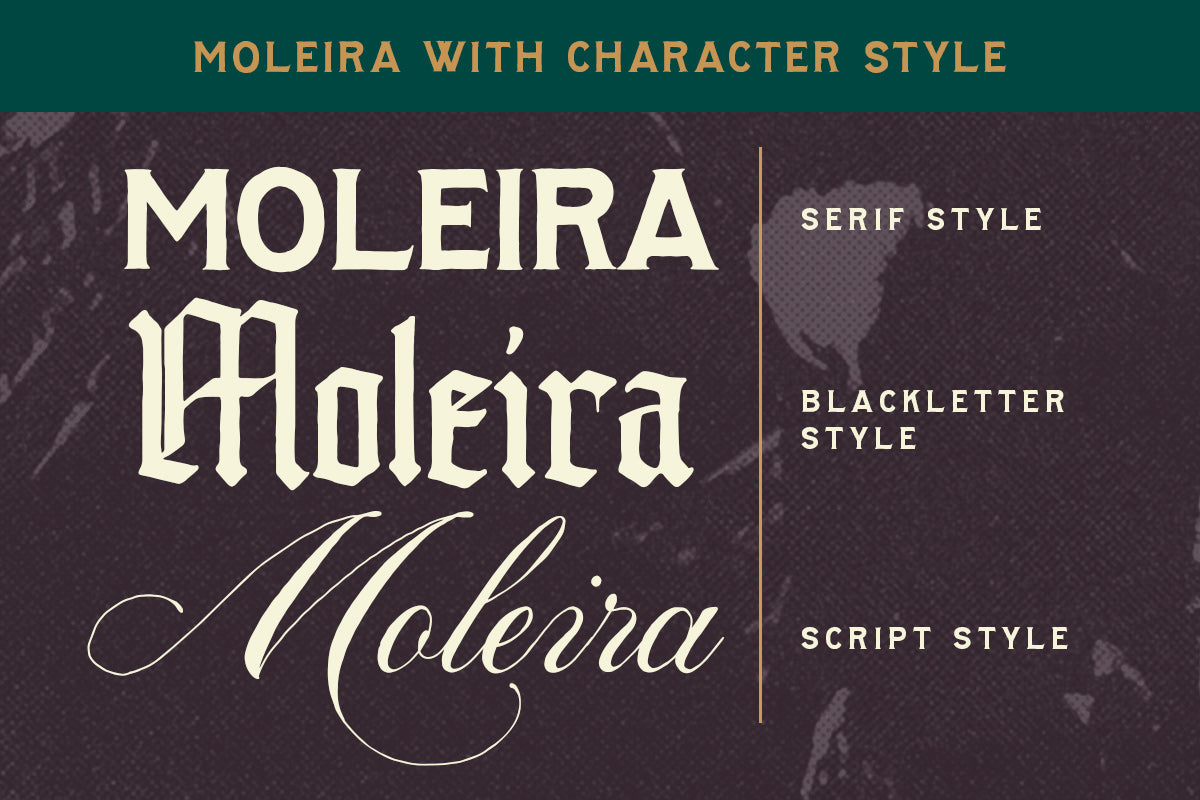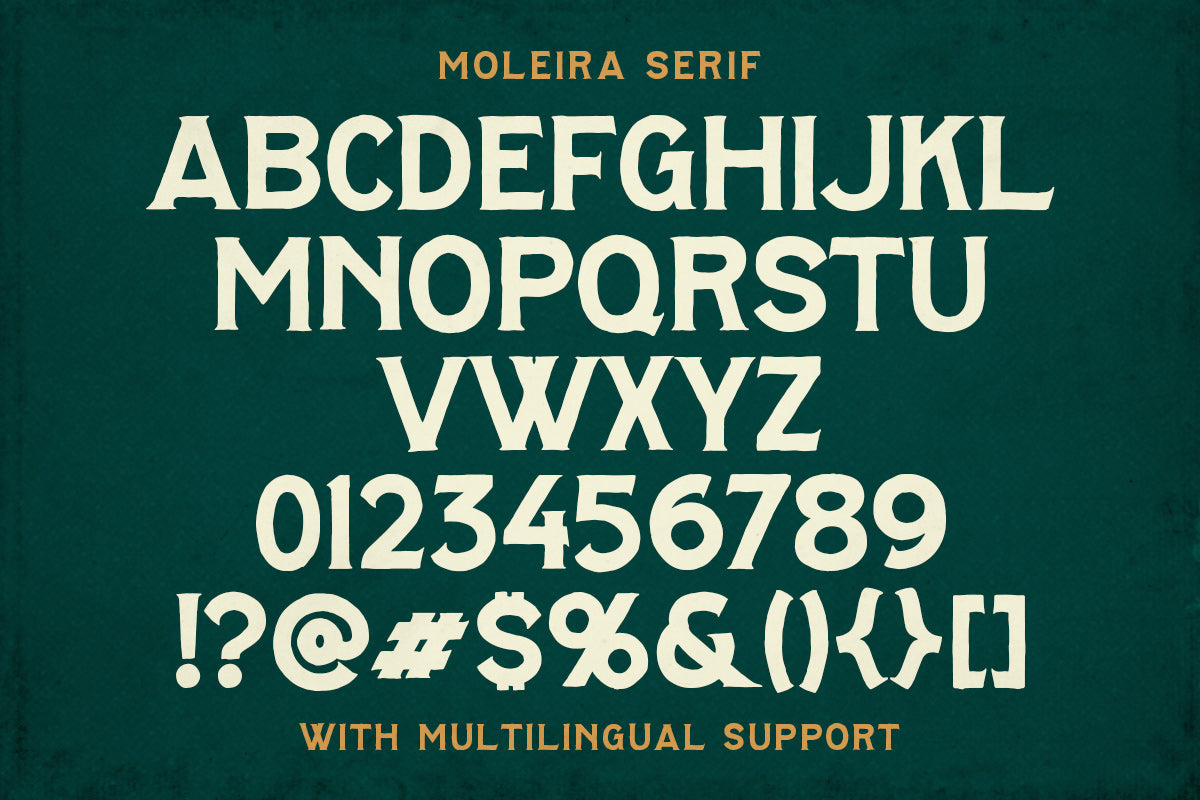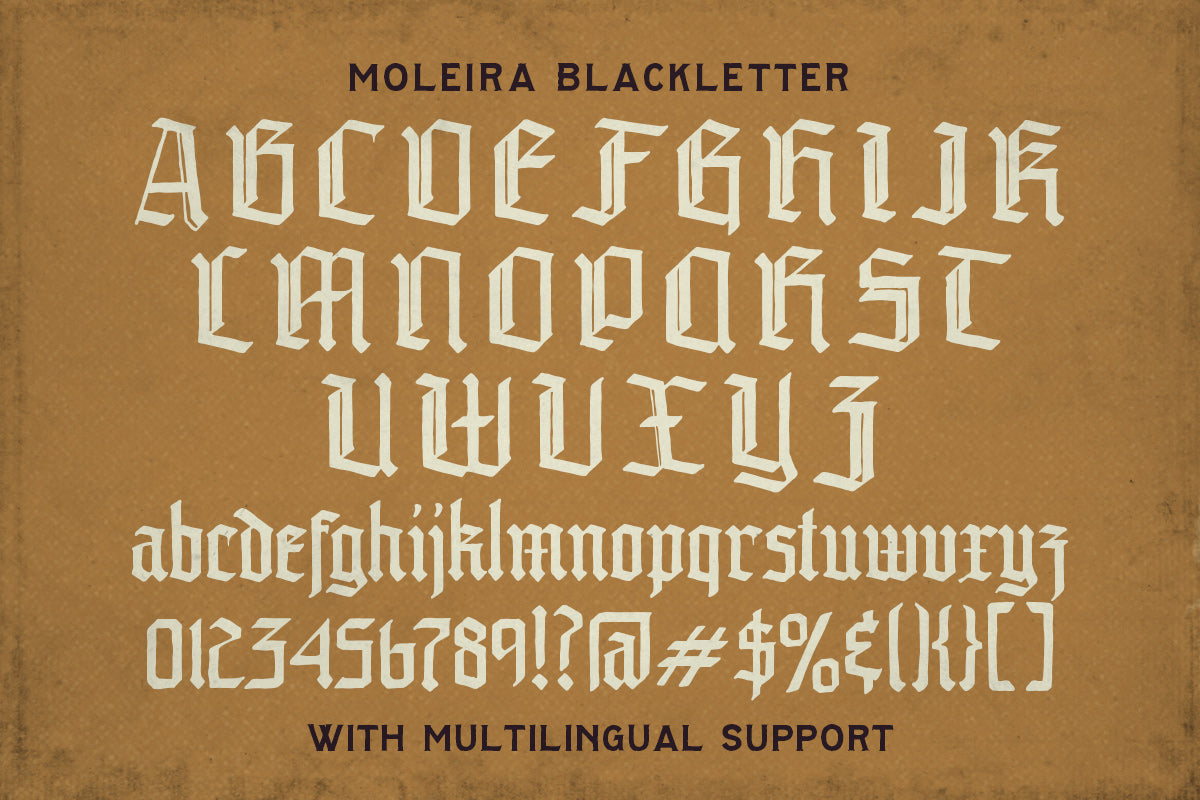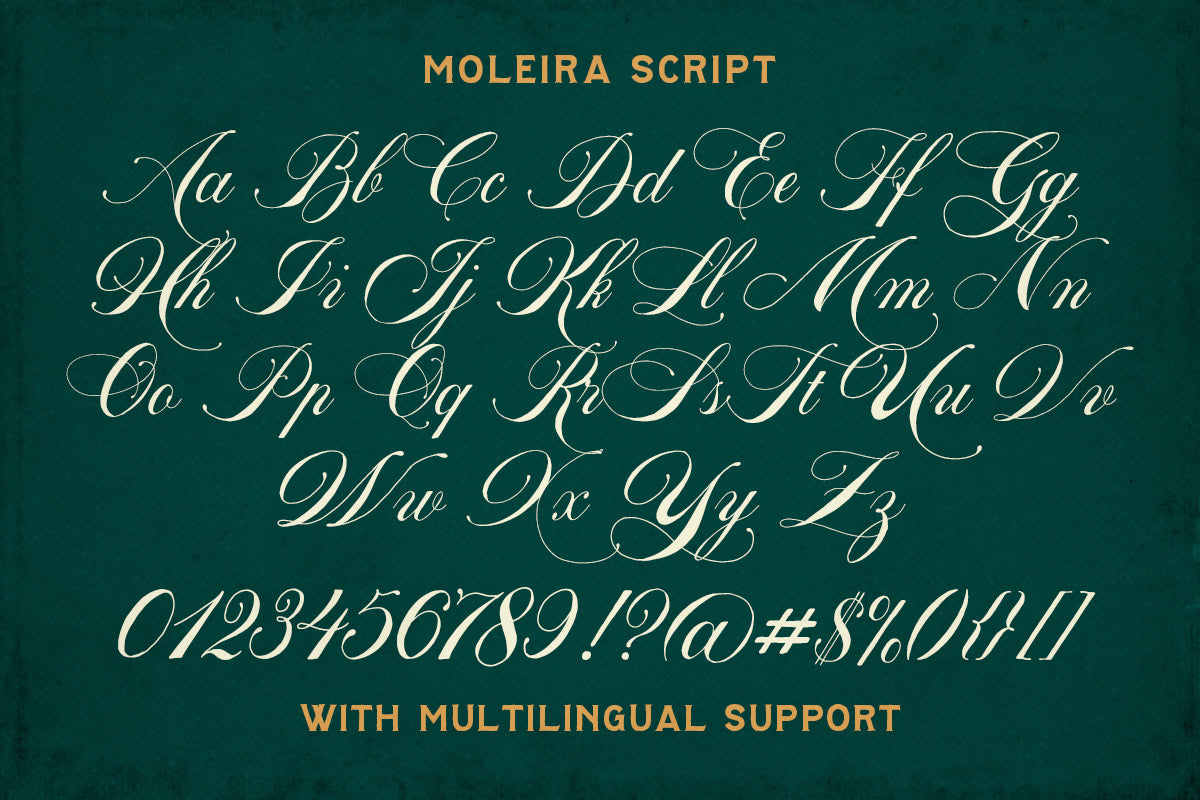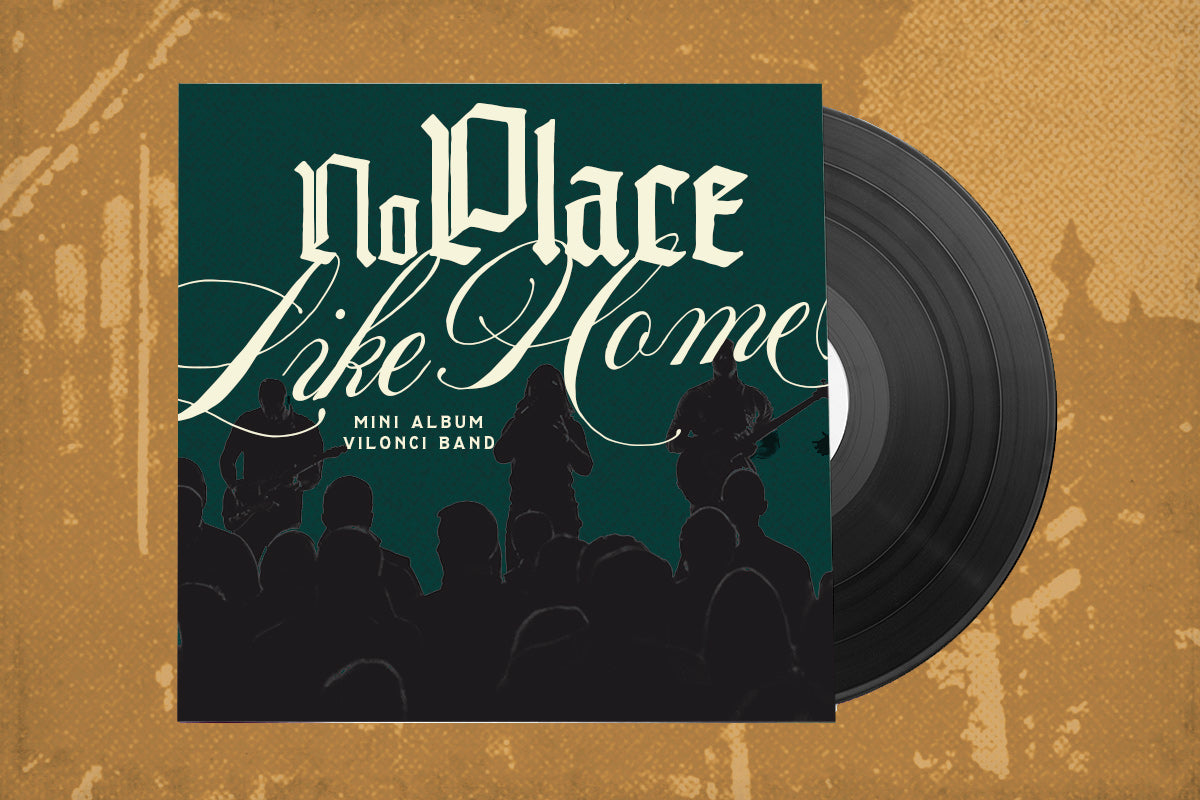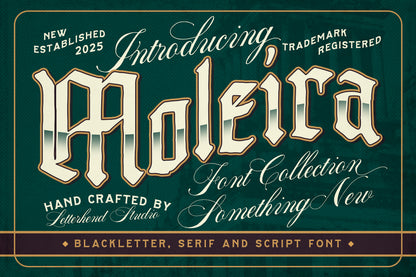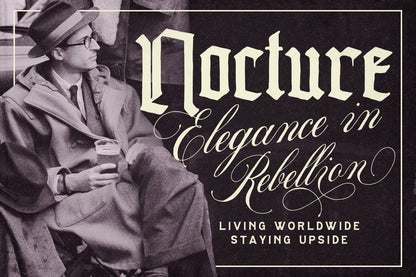
Moleira Font Collection
Moleira is a versatile font collection that blends blackletter’s dramatic presence, serif’s classic readability, and script’s flowing charm. Built for standout logos, heritage-inspired packaging, and attention-grabbing headlines, it carries a vintage-meets-modern vibe—ornate enough to catch the eye, yet adaptable for contemporary projects—instantly giving your work personality, authority, and a touch of handcrafted artistry.